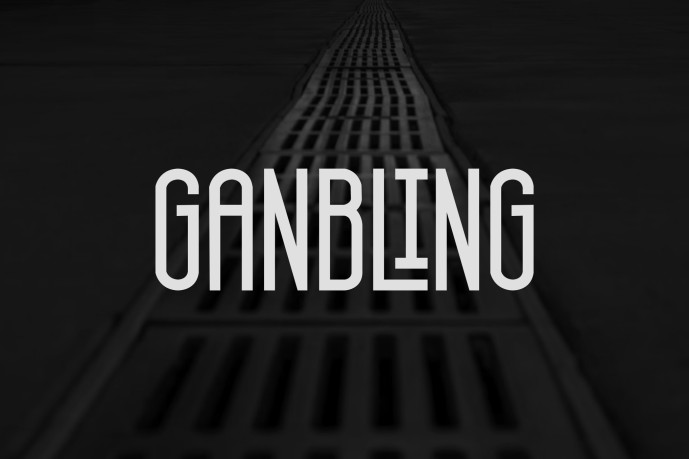
Ganbling Font
Designer: alanwarstd
Ganbling Font – Sans Serif Display Typeface is a bold and authentic display font. The font is suitable for any branding project like logo, esport, and many more. outstanding in a wide range of contexts.